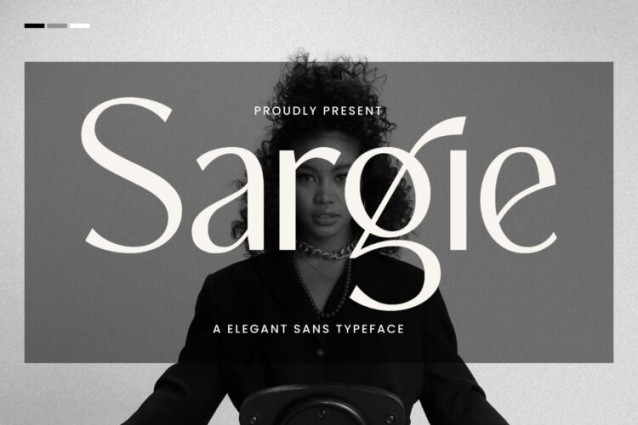
Sargie Font
Sargie Font is a Elegant & Stylish Typeface – This font is modern and classy and works great for logos, magazine, social media. Already matched up and ready to be used together for your next design! For those of you who are needing a touch of elegant, stylish, classy, chic and modernity for your designs, this font was created for you!